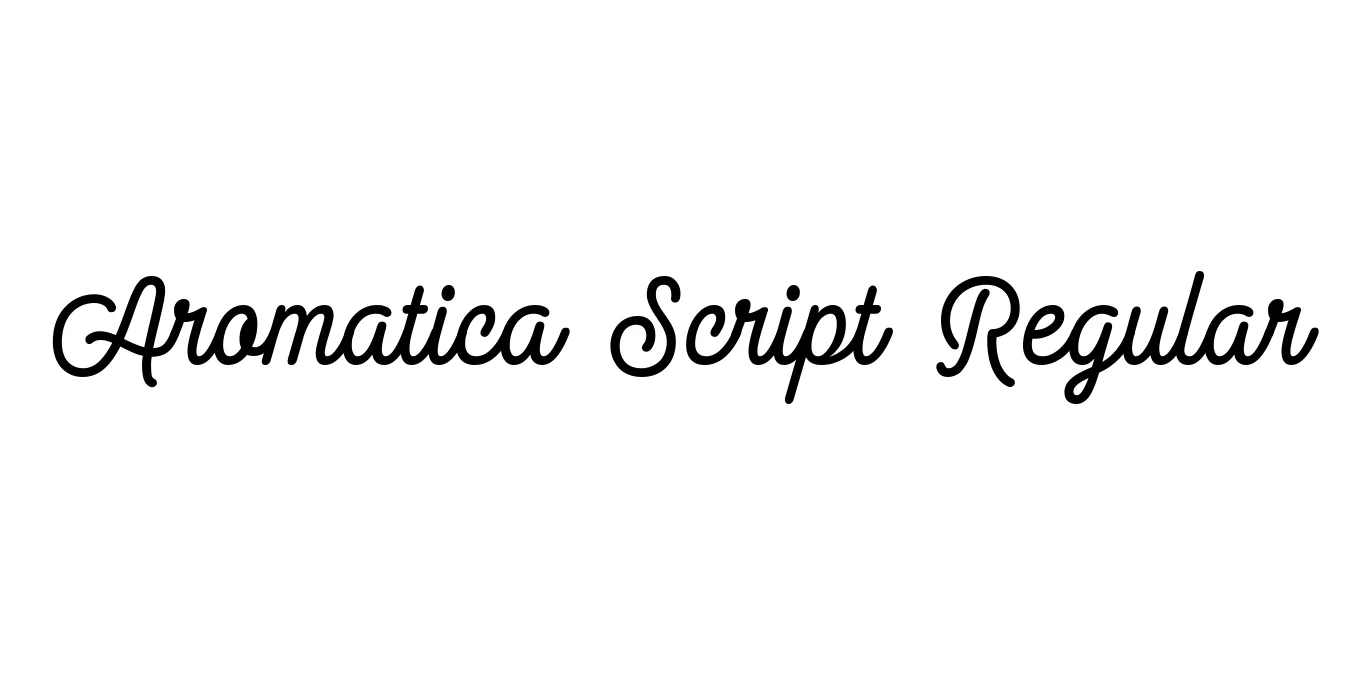
Aromatica Script Regular
Designed by Manuel Corradine
Aromatica Script Regular is a charming, monolinear script typeface crafted by the prolific designer Manuel Corradine. This font is characterized by its soft, rounded terminals and fluid, rhythmic strokes that evoke a sense of handcrafted quality and warmth. It was designed to offer a clean yet organic look, bridging the gap between a structured geometric font and a free-flowing calligraphic script, making it exceptionally versatile for modern design applications.
The script is part of the broader Aromatica font family, which includes various weights and sans-serif companions intended for perfect pairing. Because of its approachable and friendly personality, it has become a staple for designers working within the culinary, artisan, and lifestyle sectors. Its balanced x-height and clear letterforms ensure that it remains highly legible even at smaller sizes, providing a sophisticated retro-modern aesthetic to any project.
Aromatica Script Regular Best Uses
Excellent for organic food labels, coffee bags, and artisanal product wrapping.
Perfect for creating approachable and warm visual identities for cafes and boutiques.
Works beautifully for storefront displays and menu boards that require a personal touch.
Ideal for quote graphics and lifestyle content that needs a stylish, handwritten feel.